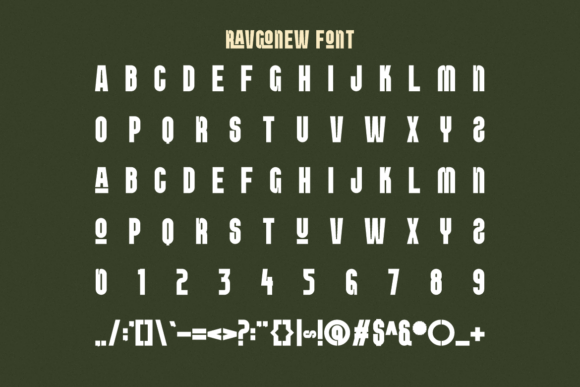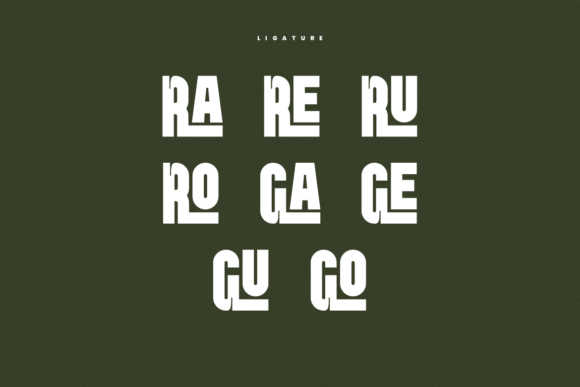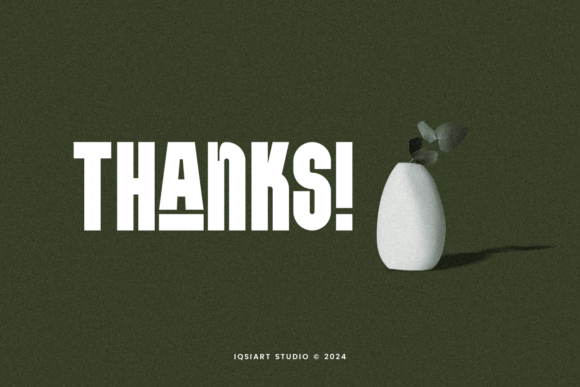
Introduction to Ravgonew Font
You’ve spent hours pouring over a design project, trying to find the perfect font to capture the essence of your creative vision. And then, it hits you – the moment when everything comes together, and your design leaps off the screen. For many designers, this is the sweet spot where art meets functionality, and the right font can make all the difference. One such font that can elevate your design to new heights is the Ravgonew Font, a modern condensed display font that’s designed to make a statement.
With its clean lines and bold look, Ravgonew Font is the perfect design resource for any creative project. Whether you’re working on a high-quality advertisement, a poster, or a website, this font is sure to grab attention and leave a lasting impression. And the best part? It’s available for free download, making it an accessible and valuable addition to any designer’s toolkit.
Key Features of Ravgonew Font
- Unique, hand-drawn design perfect for creative projects requiring a high level of customization.
- Perfect for designers seeking a distinctive, high-quality design resource for their next creative project.
Honest Review: Ravgonew Font
I recently stumbled upon the Ravgonew Font and was excited to give it a try in my creative project. As a designer, I’m always on the lookout for high-quality design resources that can elevate my work, and this font definitely delivered.
- ✨ The font has a unique and modern aesthetic that adds a touch of sophistication to any design project.
- ✨ The font is incredibly versatile and can be used for a wide range of creative projects, from logos to brochures.
- ⚠️ The font may not be suitable for projects that require a more traditional or classic look.
Overall, I was impressed with the Ravgonew Font and would highly recommend it to fellow designers. Its unique style, versatility, and high quality make it a valuable addition to any design resource library. The fact that it’s free to download is just the icing on the cake. Give it a try and see how it can elevate your creative projects!
Ravgonew Font is a high-quality, free download font perfect for creative projects. With its unique style and versatility, it’s an excellent addition to any design resource.
Ravgonew Font is perfect for creative projects, including logos, posters, and social media graphics. Its high-quality design makes it an excellent choice for business cards, brochures, and other marketing materials.